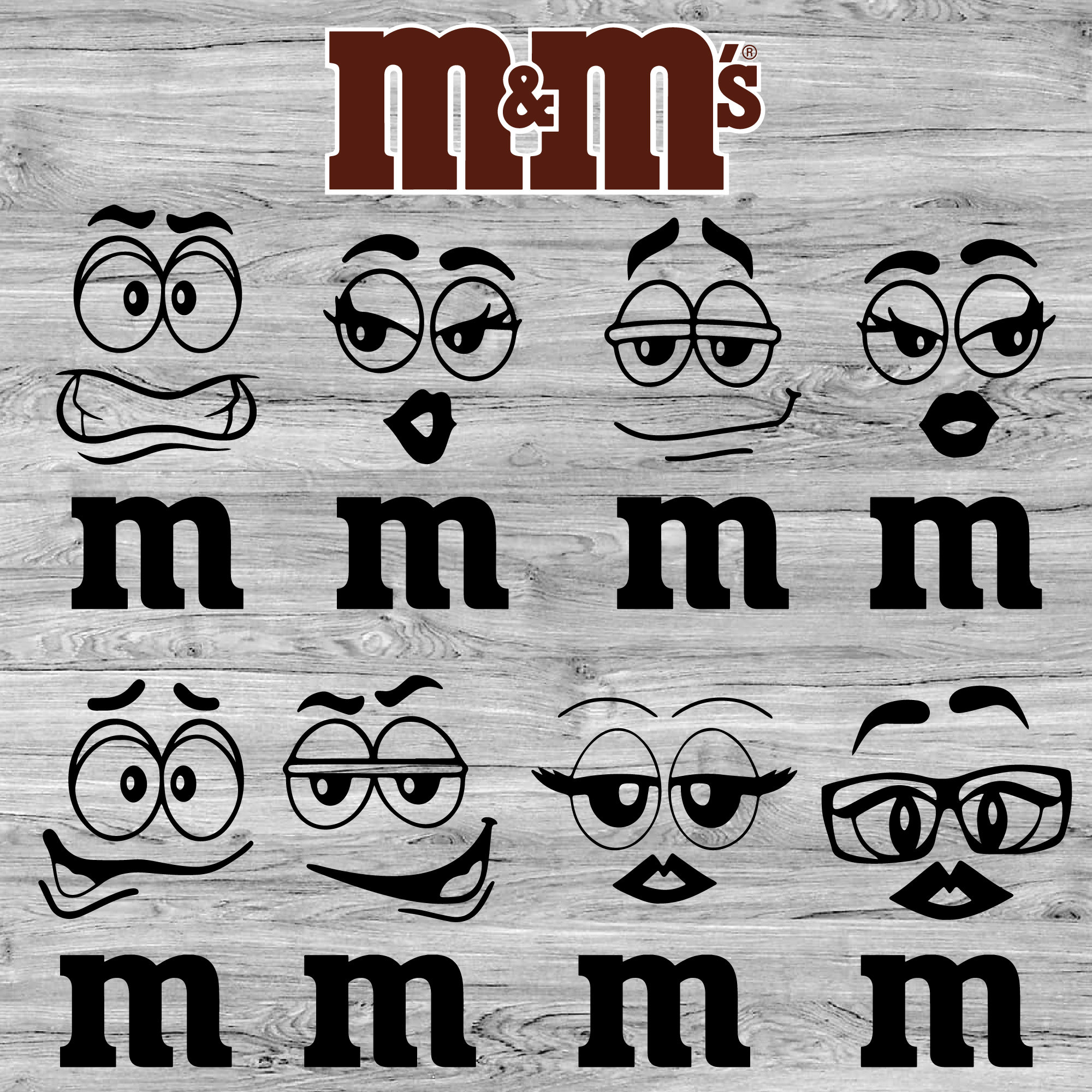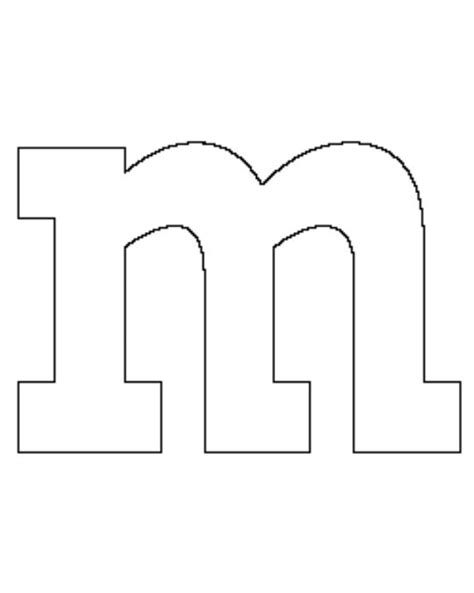
M&M Font. Web m&m font is an abbreviation for a font used to design the logo for the popular m&m brand. Web learn about the history and meaning of m&m's font logo, a custom typeface designed by two men with the same name.
Web using this m&m font. Web learn about the history and meaning of m&m's font logo, a custom typeface designed by two men with the same name. Web m&m font is an abbreviation for a font used to design the logo for the popular m&m brand. Maybe many of you do not. M&m fonts can help your brand become a familiar symbol to customers through the logo you.
Maybe many of you do not. Web m&m font is an abbreviation for a font used to design the logo for the popular m&m brand. M&m fonts can help your brand become a familiar symbol to customers through the logo you. Web learn about the history and meaning of m&m's font logo, a custom typeface designed by two men with the same name. Web using this m&m font. Maybe many of you do not.